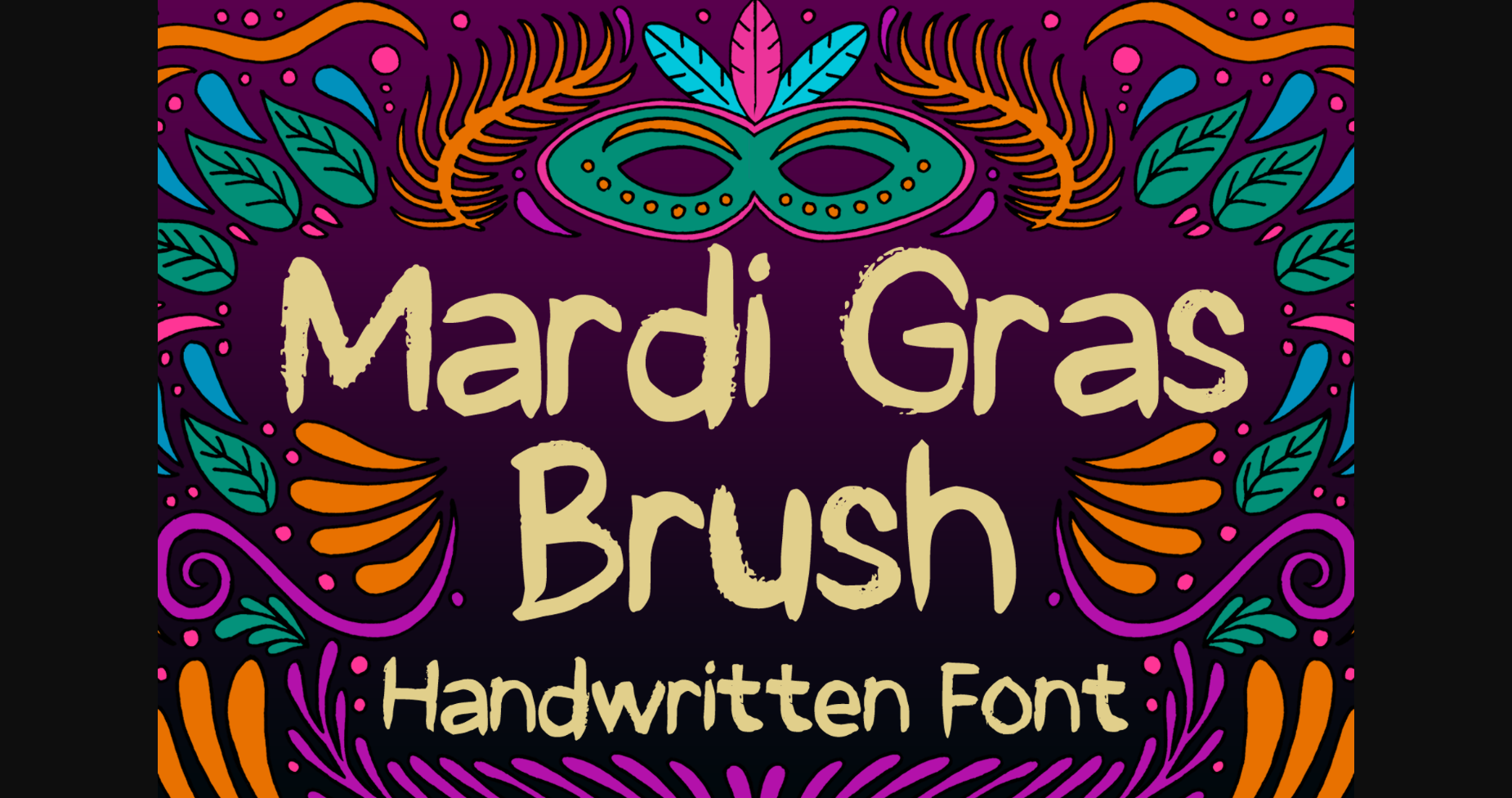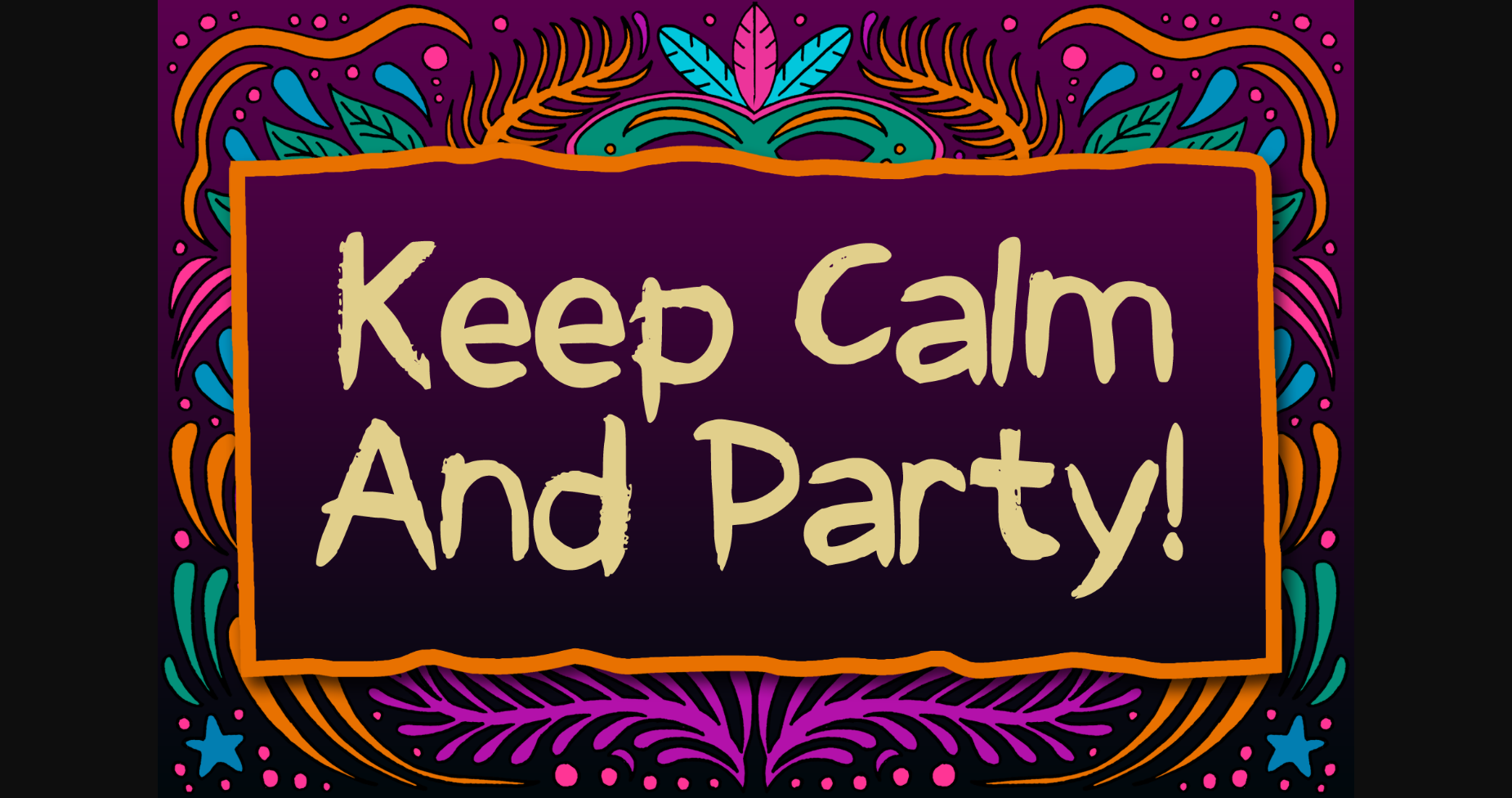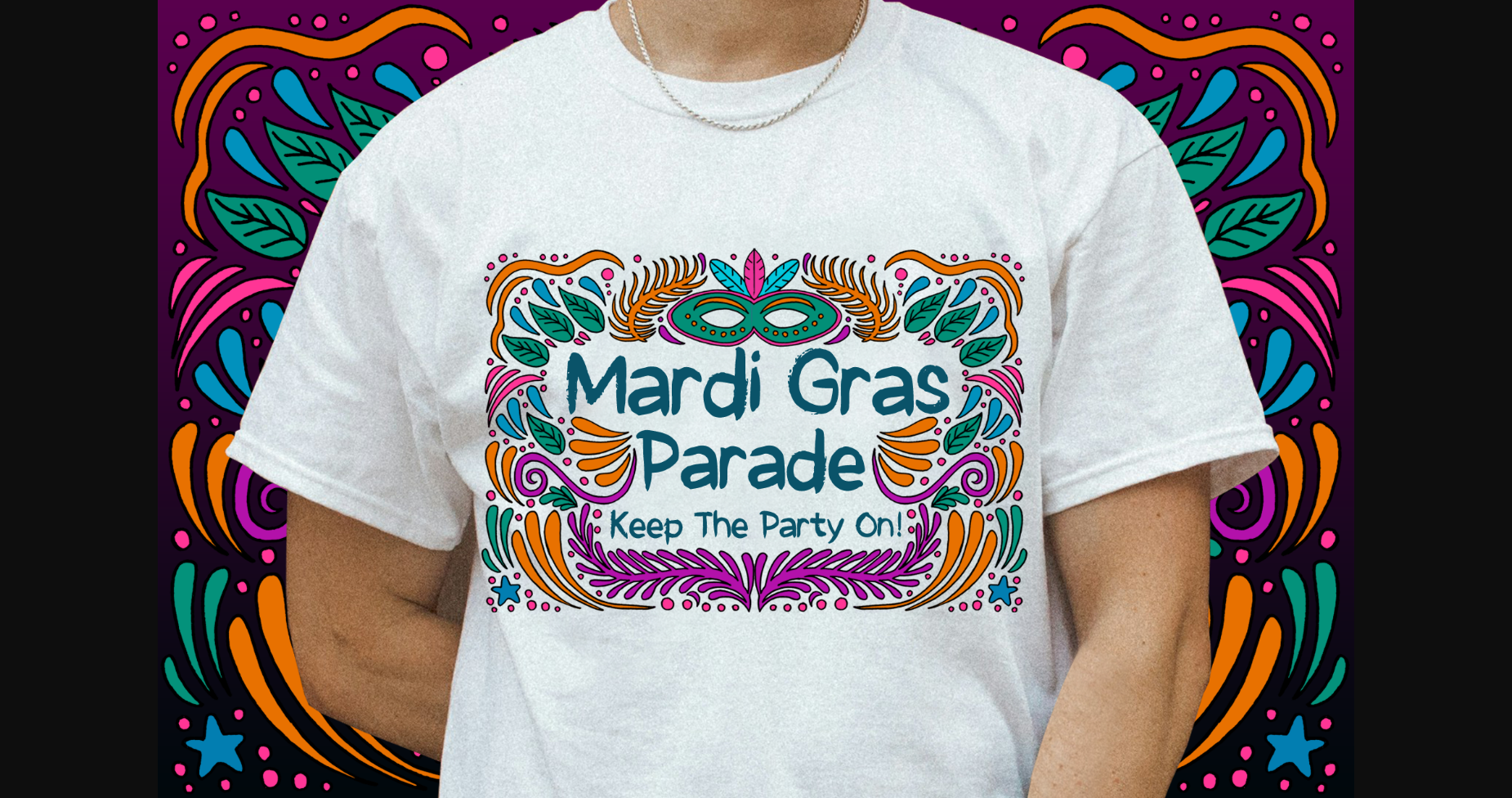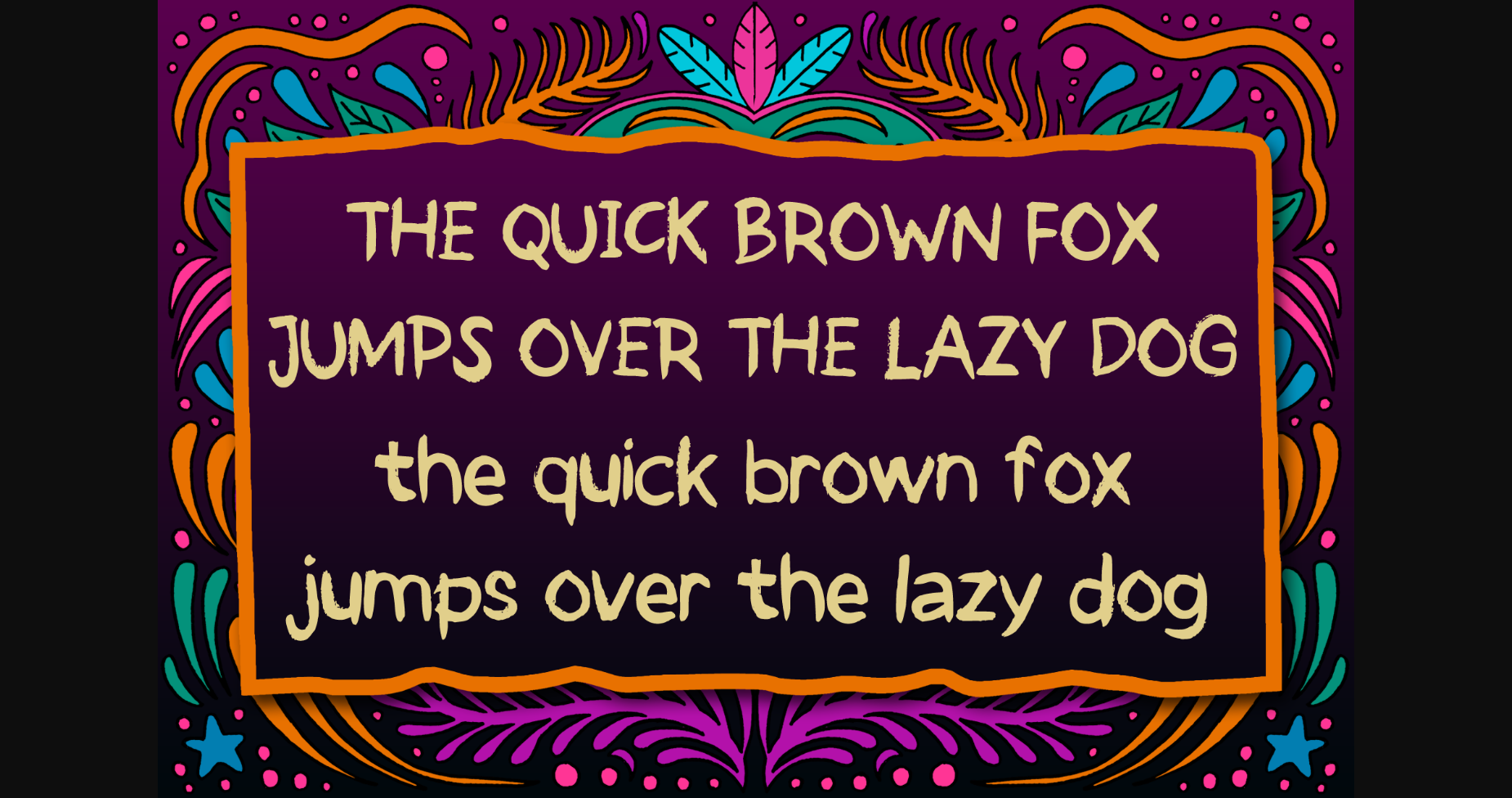
Mardi Gras Brush Font
About Mardi Gras Brush Font
Mardi Gras Brush is an ink brush sans serif font. You can use it for anything ranging from t-shirts, kids’ book designs, and greeting cards to stickers and posters, or anything that needs a casual touch. Fall in love with its incredibly versatile style and use it to create lovely designs!